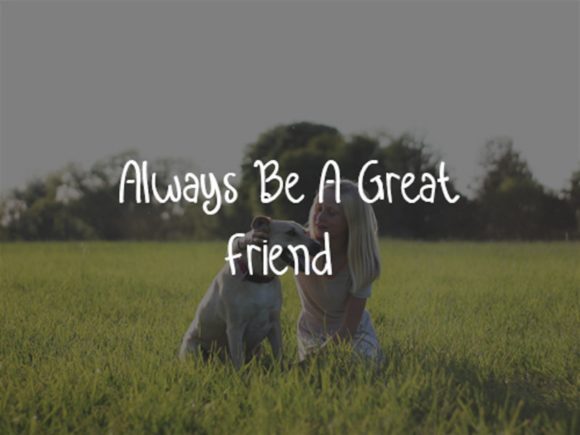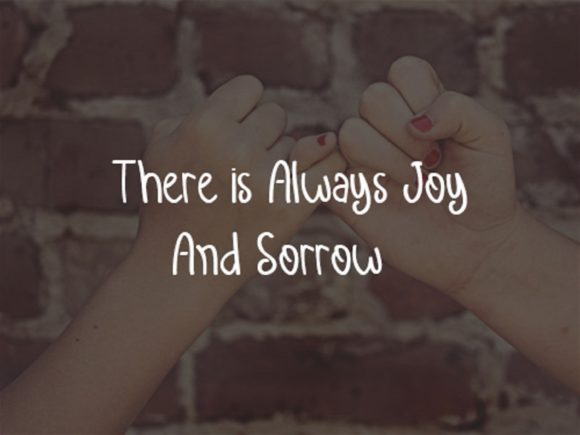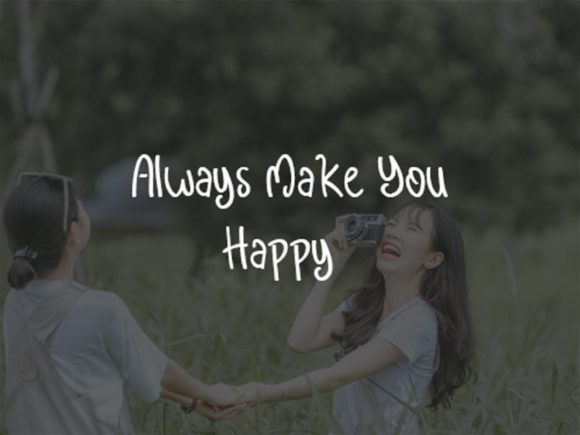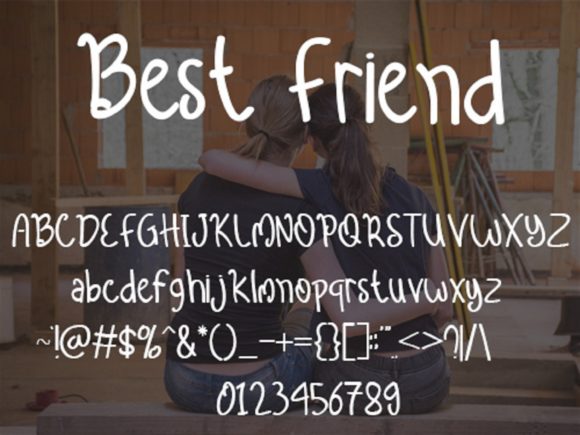
Introducing Best Friend Font: The Perfect Handwritten Font for Your Creative Projects
Are you a designer, crafter, or DIY enthusiast looking for a font that adds a personal touch to your creations? Look no further than Best Friend Font, a simple, clean, and quirky handwritten font that’s perfect for a variety of projects. In this article, we’ll explore the features and benefits of Best Friend Font, and why it’s an excellent choice for cartoon-related designs, children’s games, and more.
What is Best Friend Font?
Best Friend Font is a beautiful, handwritten font that’s designed to bring a touch of warmth and personality to your designs. With its clean lines and simple letterforms, this font is easy to read and versatile enough to use in a wide range of projects. Whether you’re creating a logo, a poster, or a digital graphic, Best Friend Font is sure to make your design stand out.
Key Features of Best Friend Font
- Simple and Clean Design: Best Friend Font features a simple, uncluttered design that’s easy to read and understand.
- Quirky and Playful: This font has a playful, quirky feel that’s perfect for cartoon-related designs, children’s games, and other projects that require a lighthearted touch.
- Handwritten Style: Best Friend Font has a warm, handwritten feel that’s perfect for adding a personal touch to your designs.
- Versatile: This font is versatile enough to use in a wide range of projects, from digital graphics to print materials.
Why Choose Best Friend Font?
So why choose Best Friend Font for your next project? Here are just a few reasons:
- Easy to Read: Best Friend Font is easy to read, even at small sizes, making it perfect for digital graphics and other projects where legibility is key.
- Unique and Creative: This font has a unique, creative feel that’s sure to make your design stand out from the crowd.
- Perfect for Cartoon-Related Designs: Best Friend Font is a great choice for cartoon-related designs, children’s games, and other projects that require a playful, whimsical feel.
- Great for Crafters and DIY Enthusiasts: This font is perfect for crafters and DIY enthusiasts who want to add a personal touch to their projects.
How to Use Best Friend Font
Using Best Friend Font is easy! Here are a few tips to get you started:
- Pair it with Other Fonts: Best Friend Font pairs well with other fonts, so feel free to experiment with different combinations to find the perfect look for your project.
- Use it for Headings and Titles: This font is perfect for headings and titles, where its playful, quirky feel can really shine.
- Add it to Your Digital Graphics: Best Friend Font is a great choice for digital graphics, such as social media posts, blog headers, and more.
In conclusion, Best Friend Font is a simple, clean, and quirky handwritten font that’s perfect for a variety of creative projects. With its easy-to-read design, unique feel, and versatility, this font is sure to become a favorite among designers, crafters, and DIY enthusiasts. Whether you’re creating cartoon-related designs, children’s games, or just any project that requires a lovely touch, Best Friend Font is an excellent choice. So why wait? Download Best Friend Font today and start adding a personal touch to your creations!